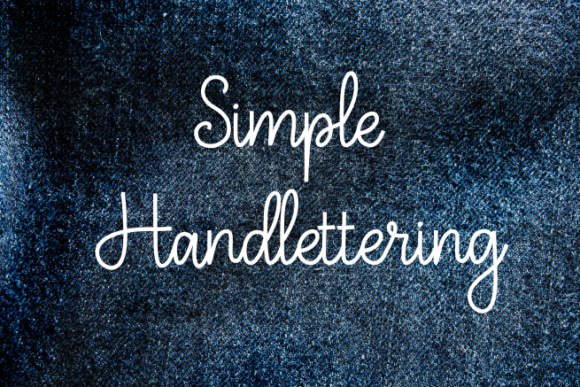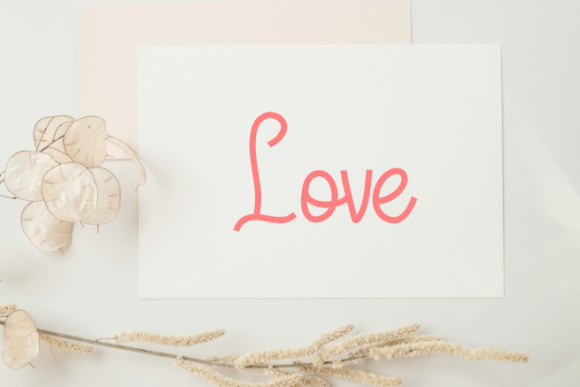
About Monoline Font
“Monoline” is a distinctive and graceful script font that captures attention with its ravishing style. This font’s unique elegance makes it a compelling choice to create stunning and visually captivating designs.
The font’s monoline design lends a sense of simplicity and consistency to your creations. Whether you’re working on branding, invitations, packaging, or digital graphics, “Monoline” has the ability to infuse your designs with a touch of timeless beauty and visual allure.
The font’s distinctiveness lies in its graceful script, which can enhance a variety of design contexts. Its versatility makes it suitable for both formal and artistic projects, adding an element of refinement that resonates with viewers. By incorporating “Monoline” into your designs, you introduce an aura of sophistication and visual appeal that enriches the overall aesthetic.
In summary, “Monoline” is not just a font—it’s a creative tool that enhances your ideas with its distinct and graceful script. Its ability to convey elegance and its potential to create gorgeous designs make it a valuable asset for designers aiming to create visually striking and captivating designs that leave a lasting impression.